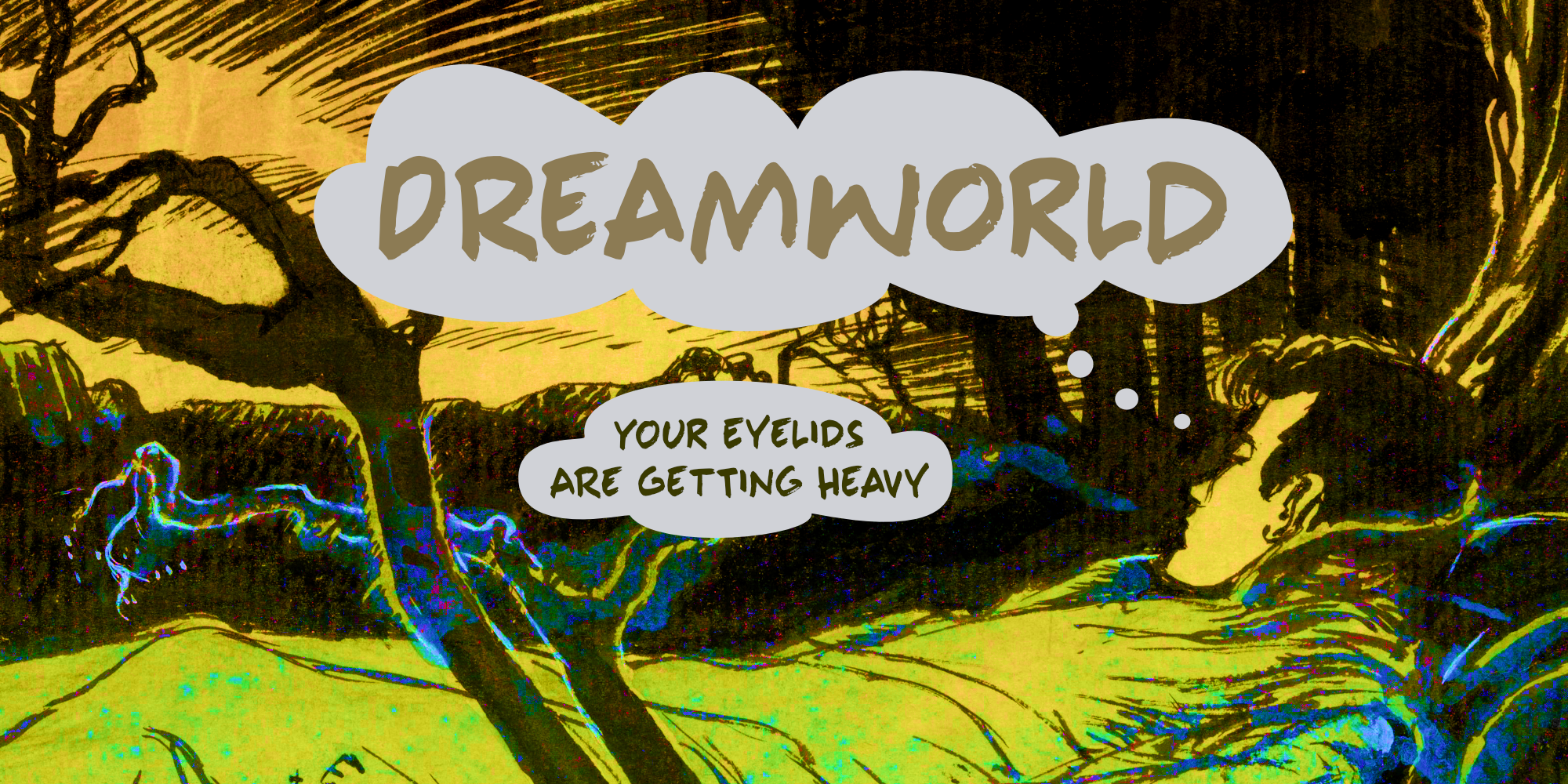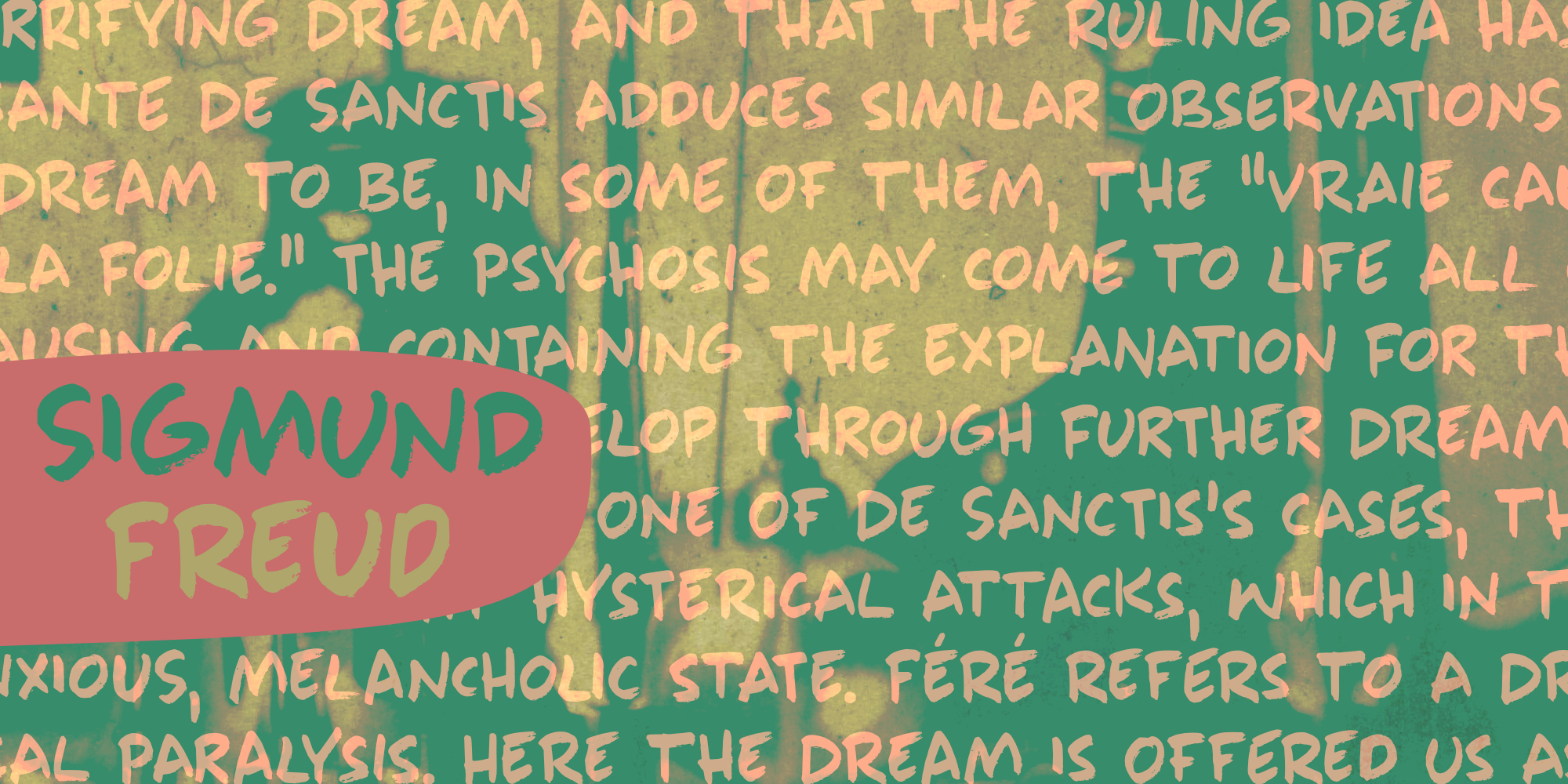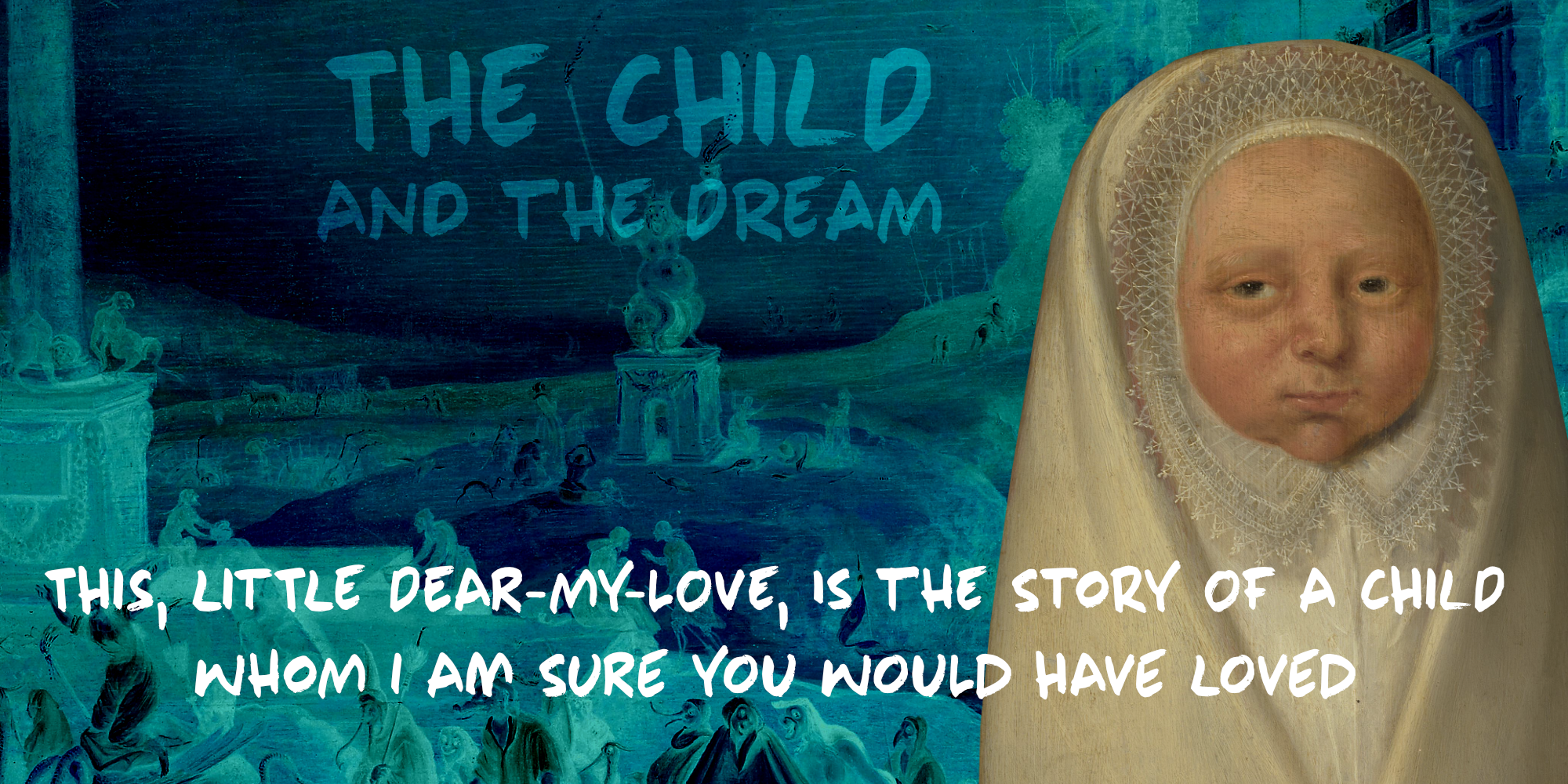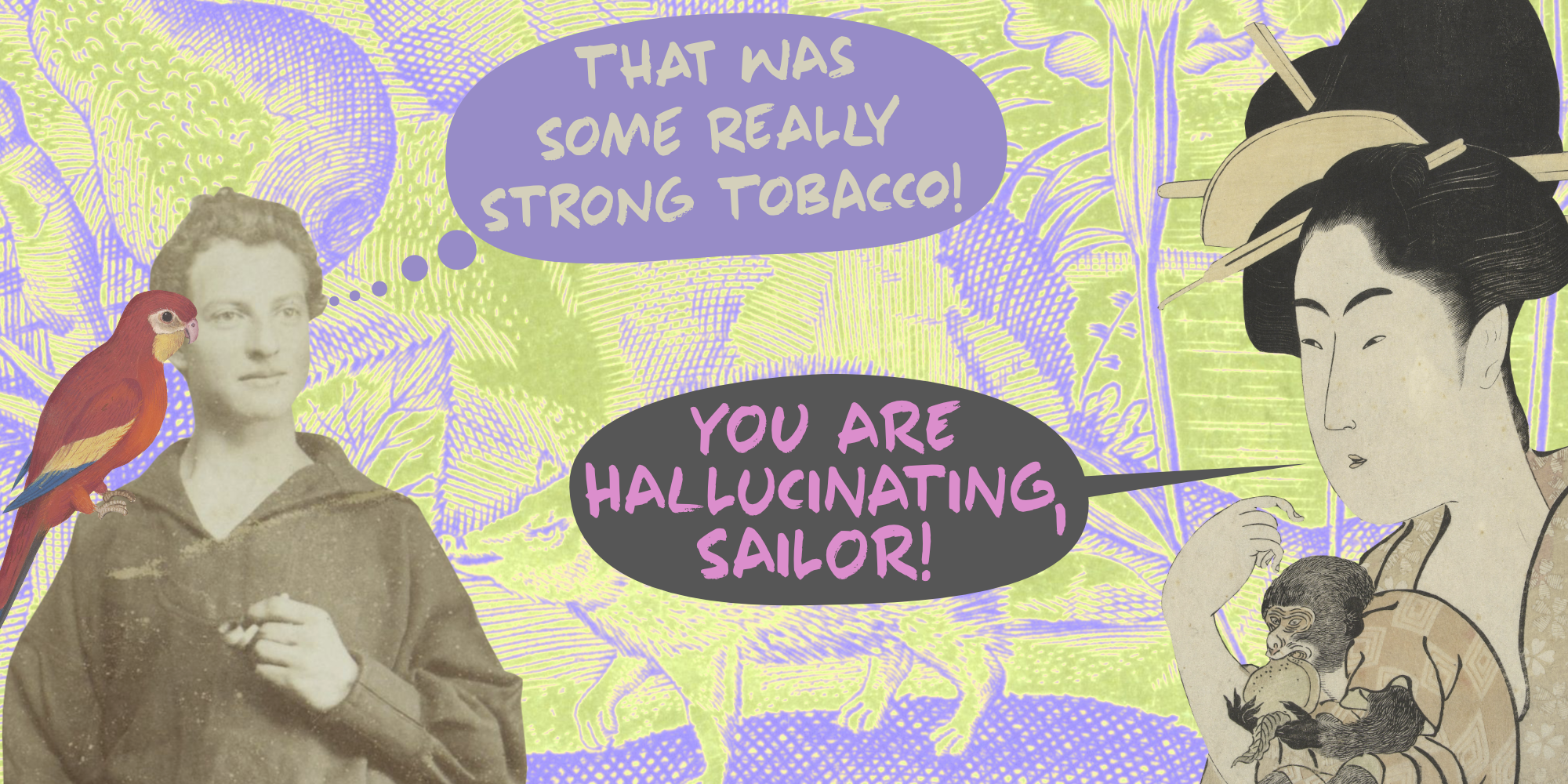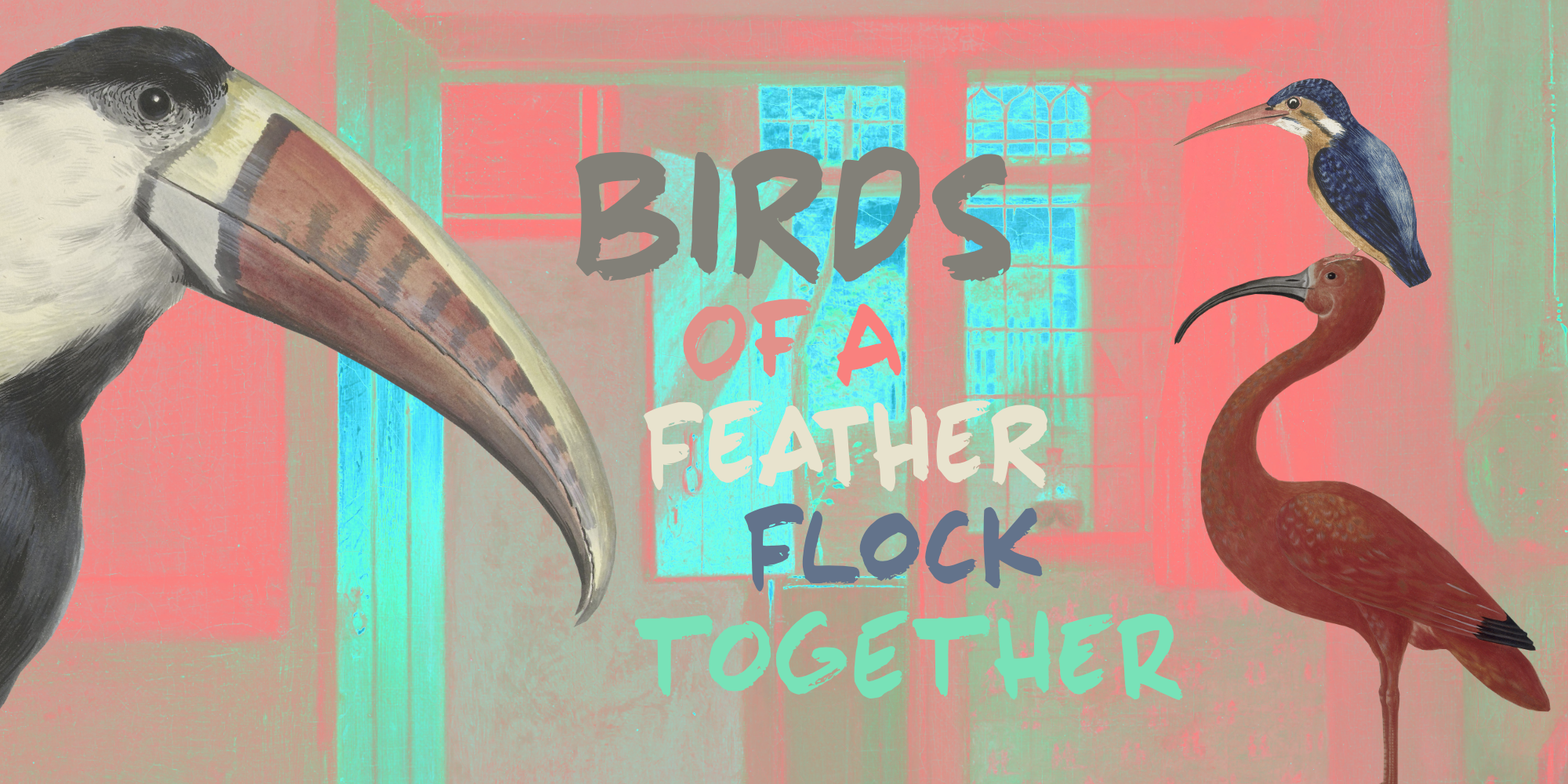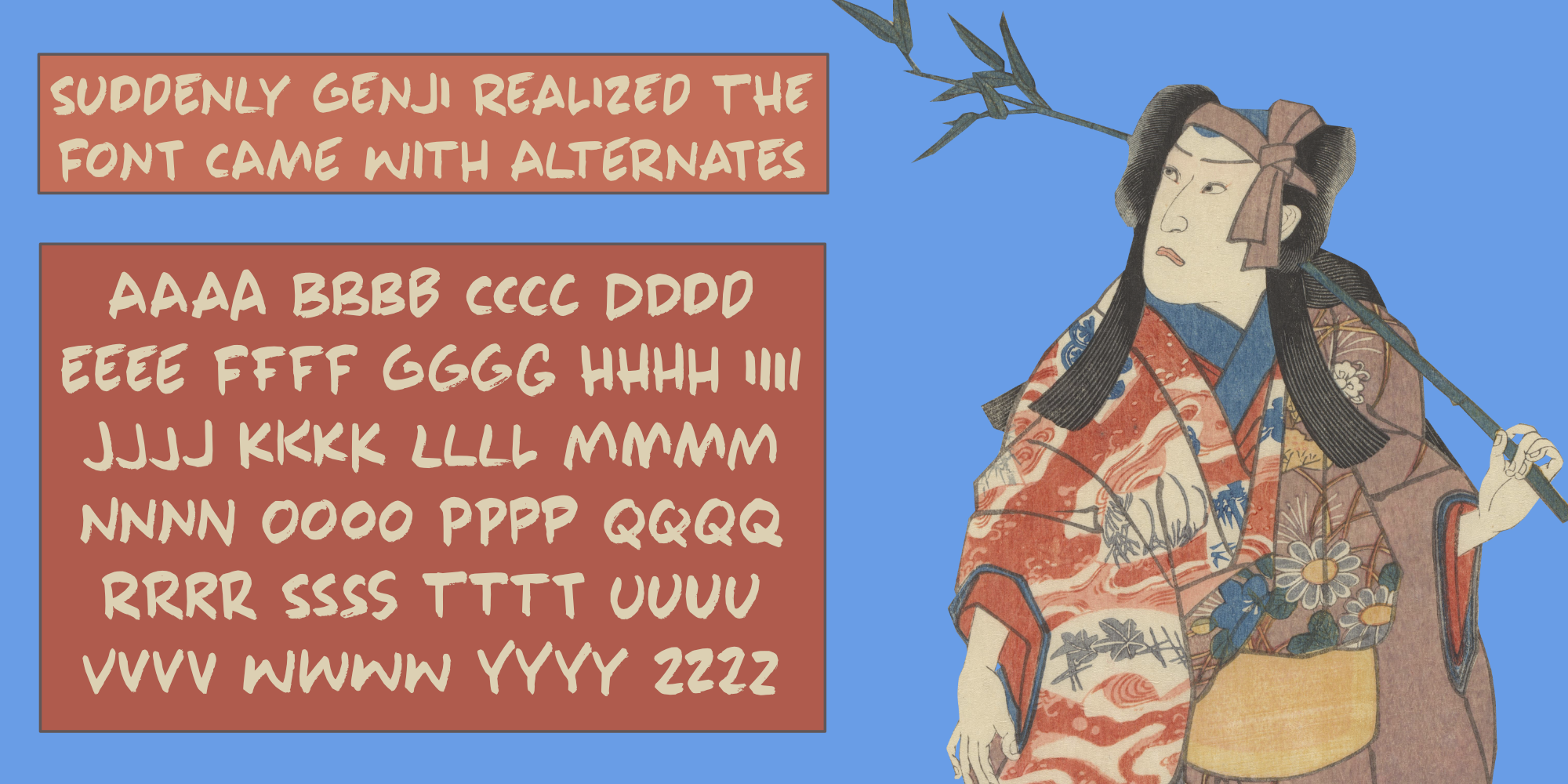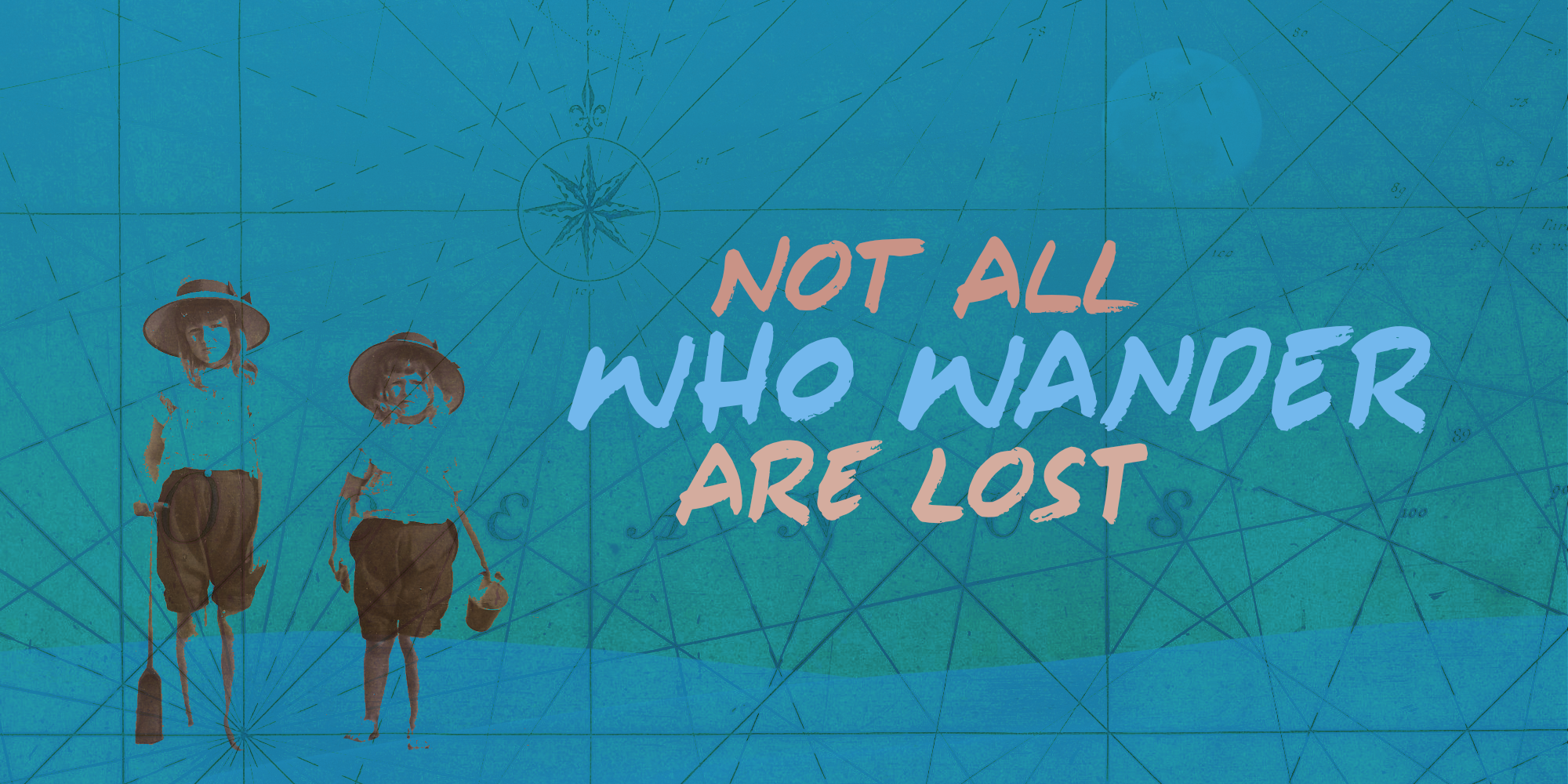
Dreamworld is a font I made with a cheap marker pen I liberated from my kids’ pencil box (I will put it back, pinky promise…). It is a bit rough, but also very easy to read and distinctive enough to make your work stand out. Of course it comes with extensive language support (let me mention Vietnamese again…) and two sets of alternate glyphs, that cycle as you type.